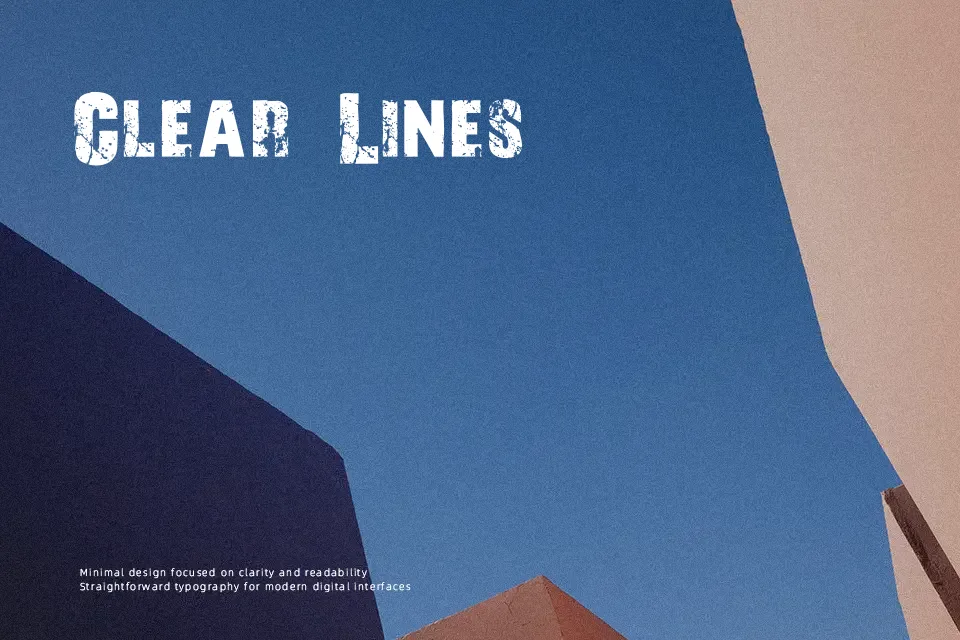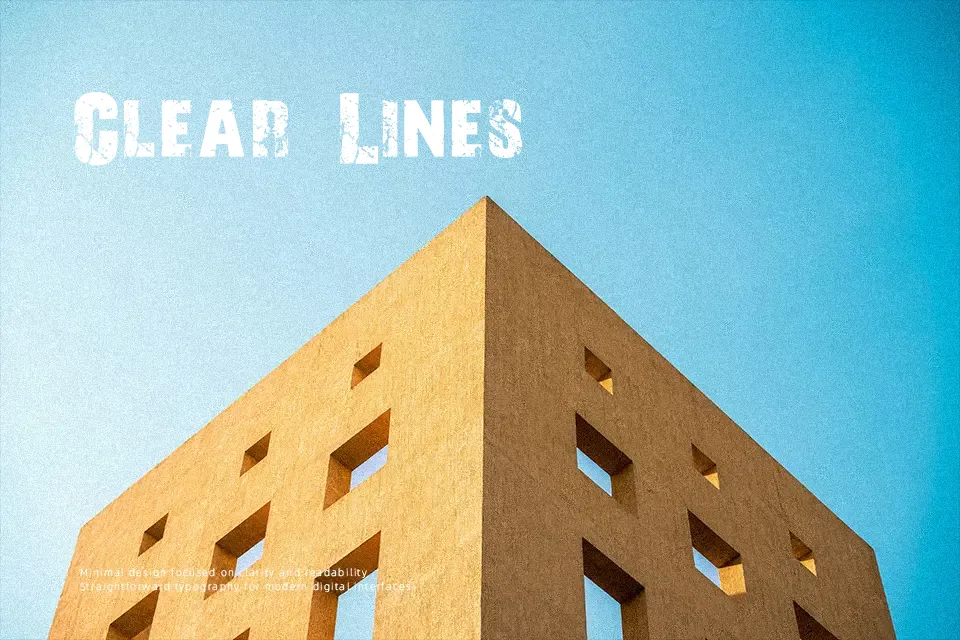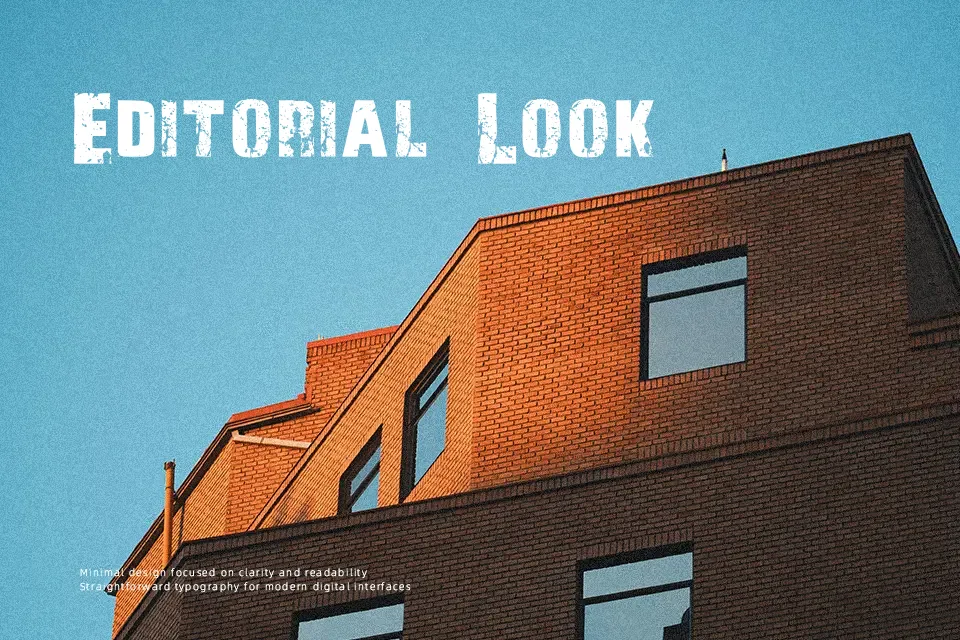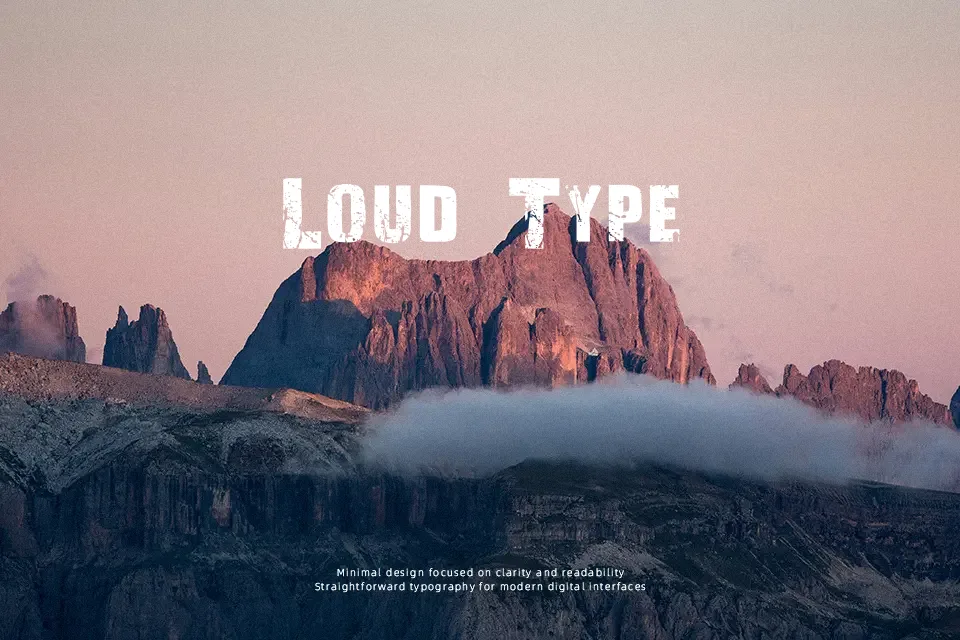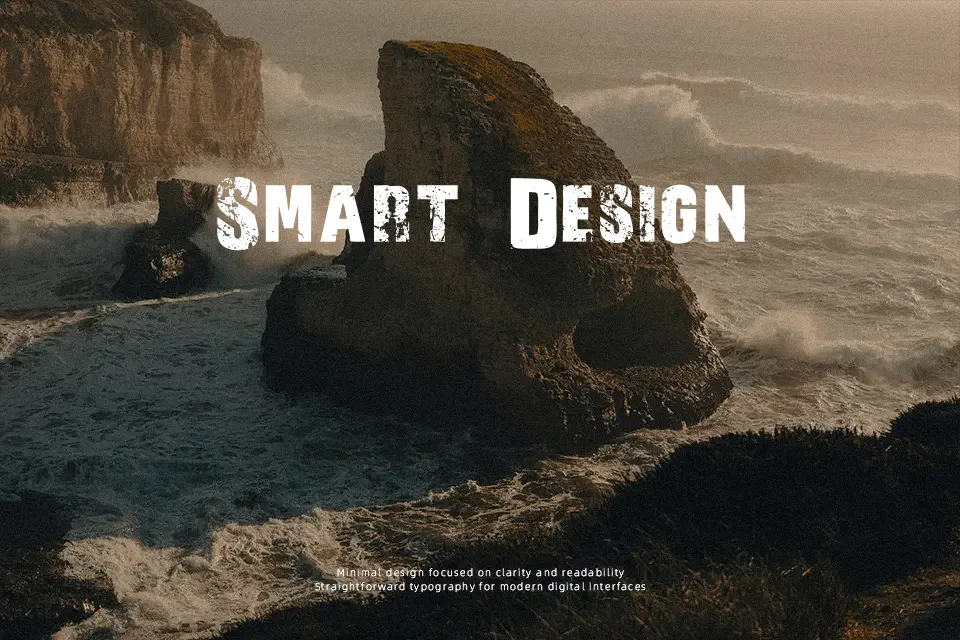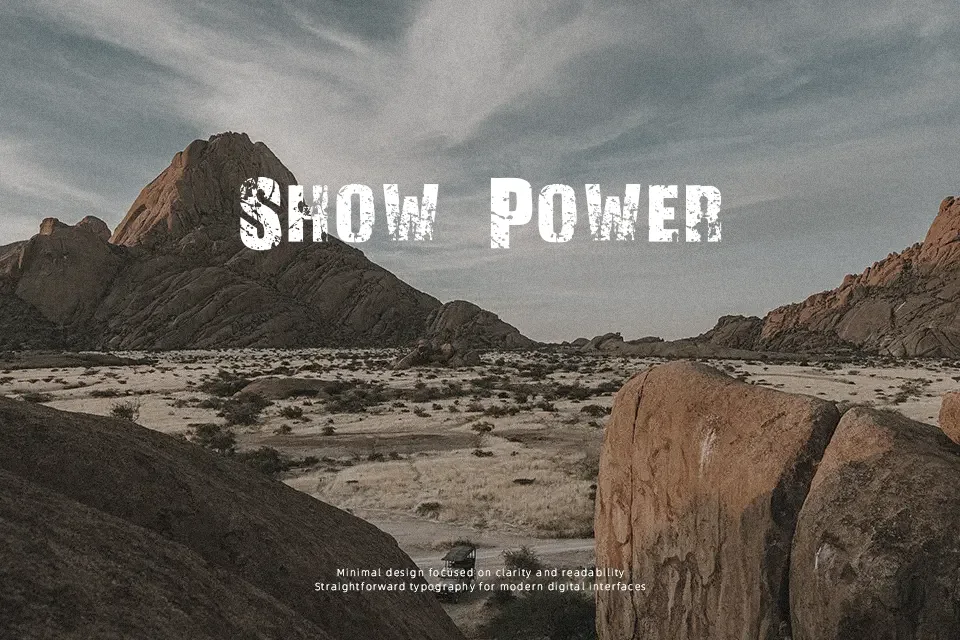
No R3verence Font
Designed by Fontmonger
No R3verence uses thick, damaged letterforms with uneven eroded edges and a forceful display-focused structure. The broad strokes create a dense visual presence, while the distressed surface breaks up the otherwise solid shapes. Spacing appears compact enough to hold together in short titles, although the worn details make individual characters less clear at reduced sizes. It works most convincingly in large headlines, cover artwork, and graphic compositions that need a rough, dark tone. The texture gives large words immediate impact, but it becomes tiring in extended text and small captions.
Best For: horror movie posters,dark album covers,streetwear graphics,Halloween event headlines
Not Ideal For: long paragraph text,small interface labels,formal business documents,dense editorial layouts
Perfect for halloween, headline, and music, with a dark and decorative style.